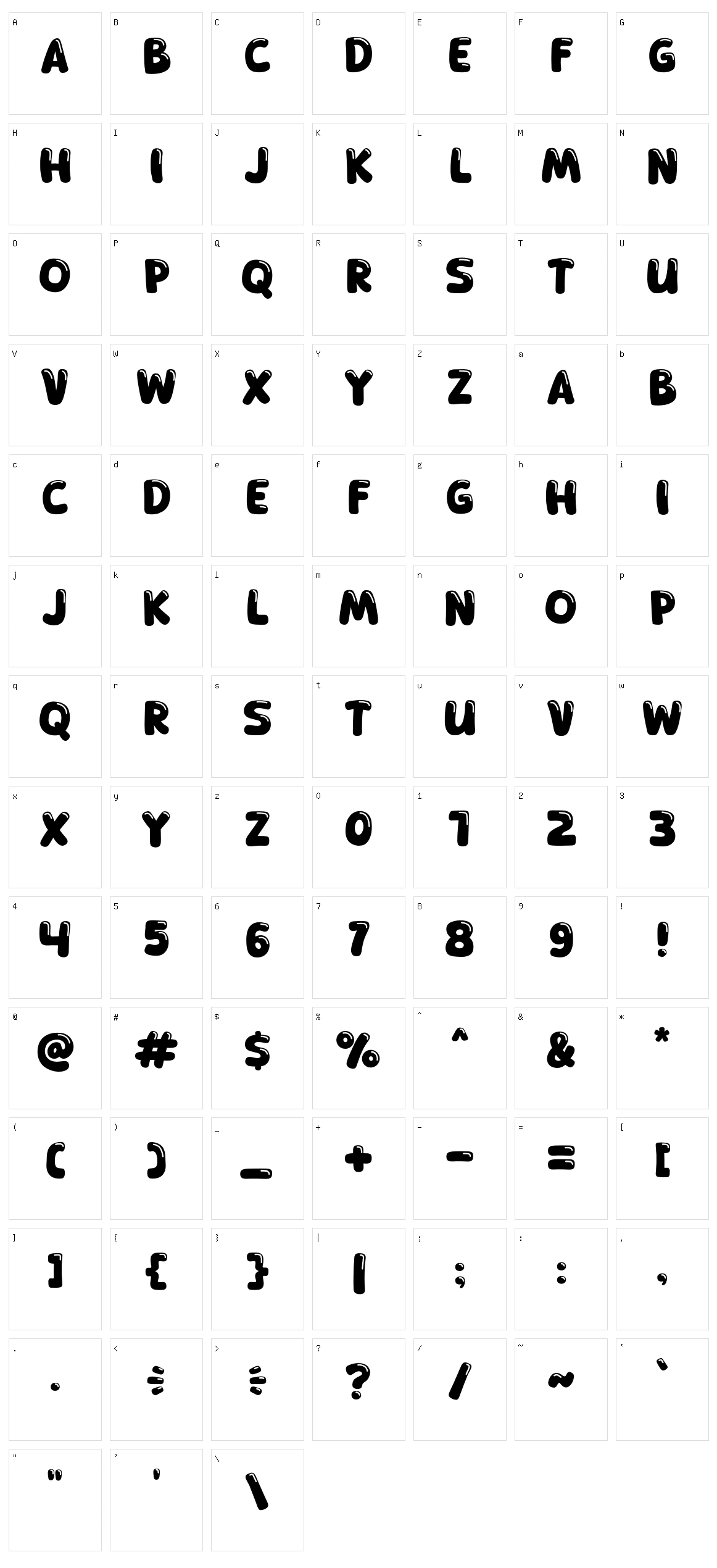
The free font Catboo is carefully designed by Khurasan, showcasing a thoughtful balance of creativity and usability and falls under the Cartoon font style. When you download the ZIP file, it contains only 379.76 KB of font files, making it lightweight and quick to download. Please review the license details below to understand permitted usage and distribution rights. If license information is not available, we recommend using this font for personal projects only or contacting the author directly for commercial usage permissions.